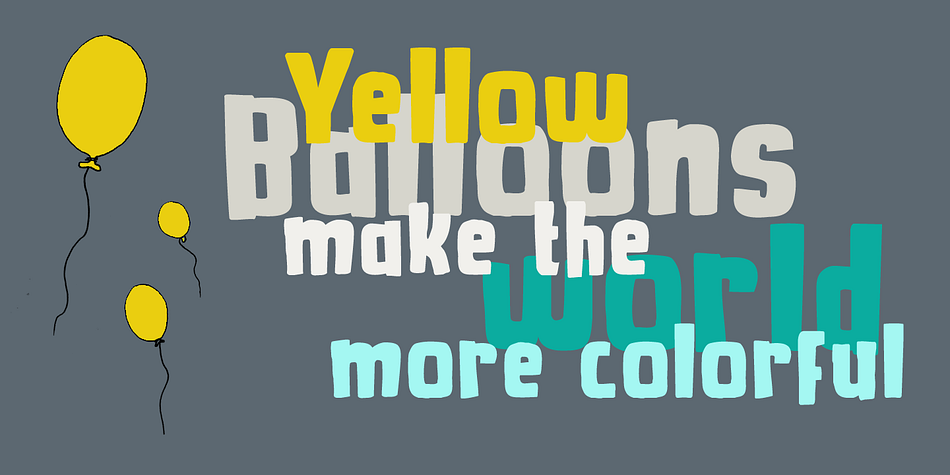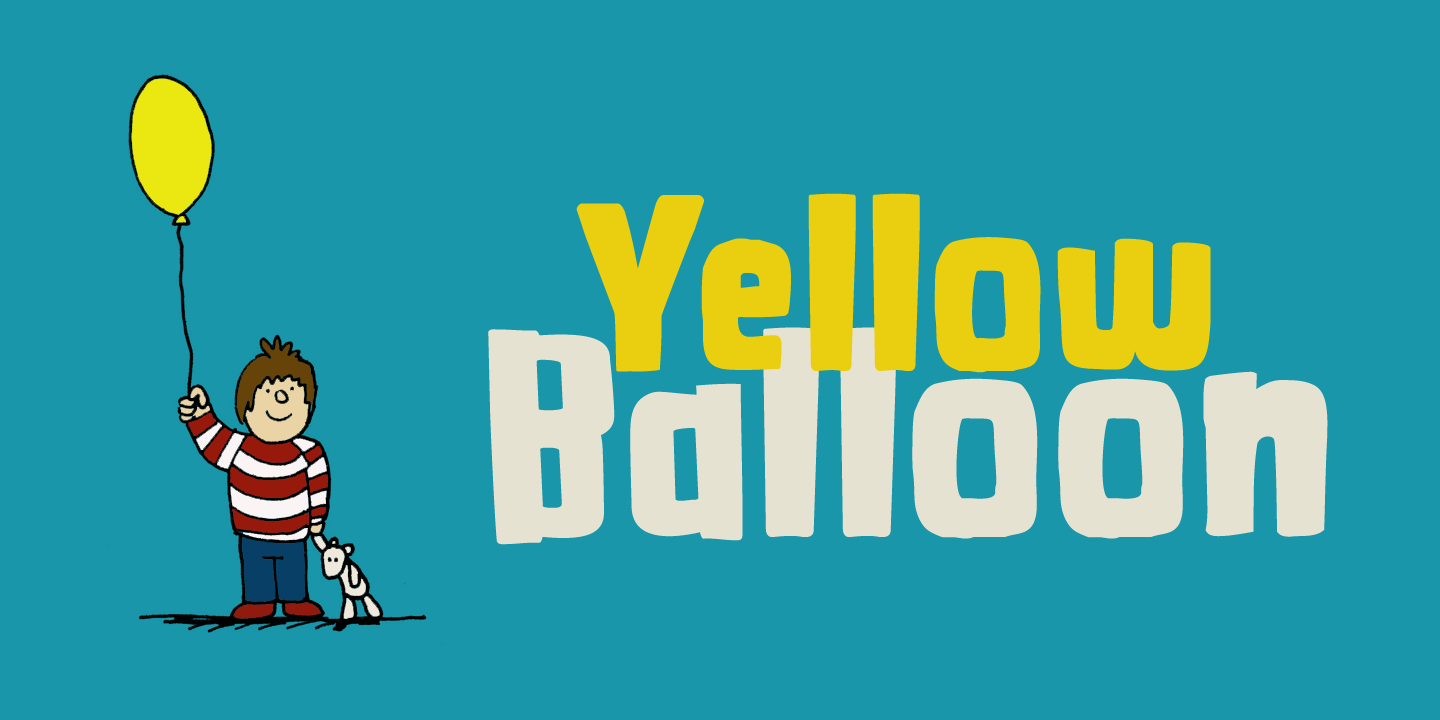
Yellow Balloon is a comic and kids font family. This typeface has two styles and was published by Hanoded.
Yellow Balloon is a typeface named after my two year old son’s favorite book: The Yellow Balloon by Dutch author/illustrator Charlotte Dematons. Every night before he goes to sleep, he wants to read the book and manages to find the yellow balloon on every page.
Yellow Balloon is a cartoonesque font with an uneven baseline. It would look great on book covers or posters. Yellow Balloon comes with extensive language support.